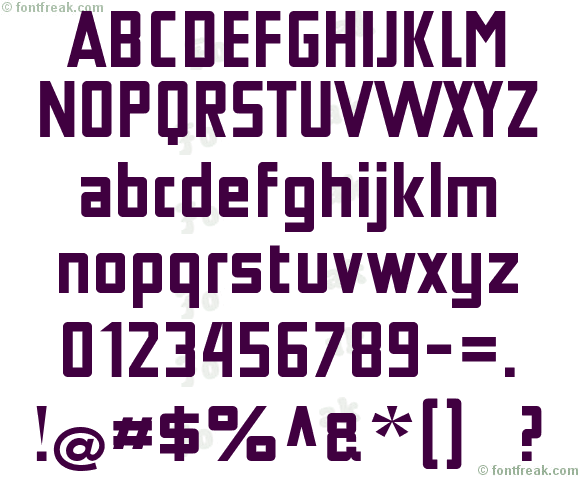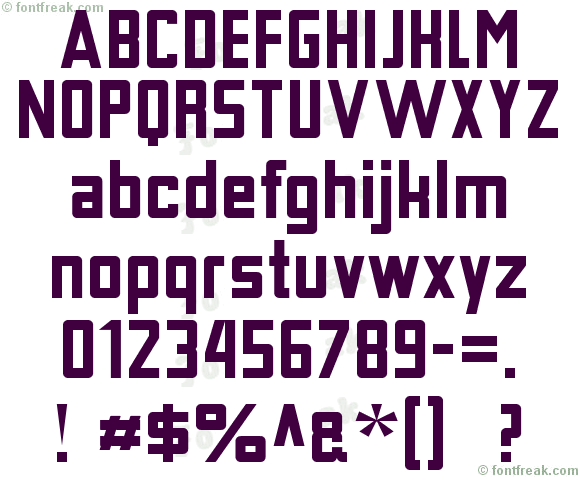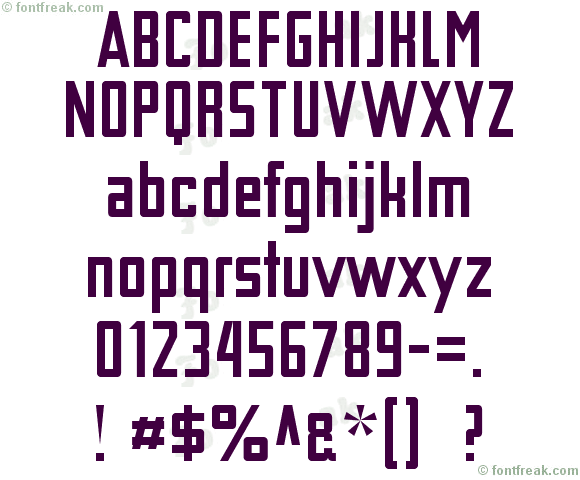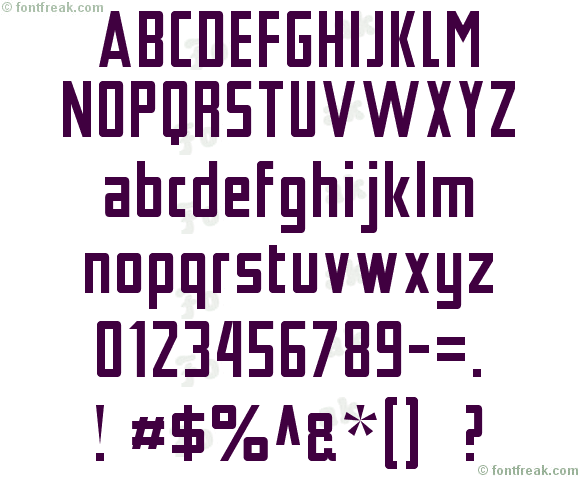
TschicholdAlternate-Bold, designed by Peter Wiegel, is a striking display font that embodies a unique blend of modernist aesthetics and functional design. As a sans-serif typeface, it features a bold, geometric structure characterized by consistent stroke weight and minimal contrast. The clean lines and balanced spacing make it versatile, allowing it to stand out in a variety of applications while maintaining readability.
Visually, the TschicholdAlternate-Bold font exudes a contemporary feel with its robust characters, which are both distinctive and eye-catching. The absence of ornate decorative elements highlights its straightforward design, making it an ideal choice for projects that prioritize clarity and impact.
This font excels in several specific use cases. It is perfect for creating eye-catching movie posters that demand attention, as well as modern restaurant menus that wish to convey a sleek, professional image. Additionally, TschicholdAlternate-Bold is well-suited for branding materials, including logos and business cards, where strong typography can help establish a memorable identity. Graphic designers will appreciate its versatility, while small business owners can leverage its boldness to engage customers effectively.
What sets the TschicholdAlternate-Bold font apart is its ability to combine functionality with a modern aesthetic, delivering a bold visual impact without overwhelming the viewer. This balance ensures that any design utilizing this typeface will stand out, making the TschicholdAlternate-Bold font free download an essential resource for those looking to elevate their typographic choices.